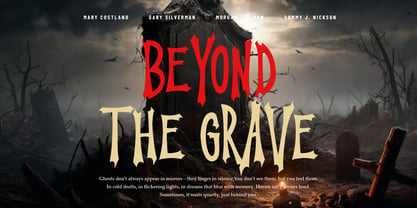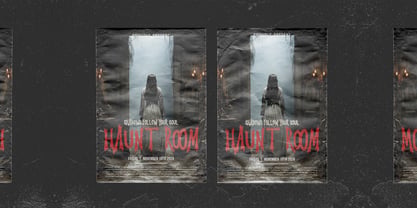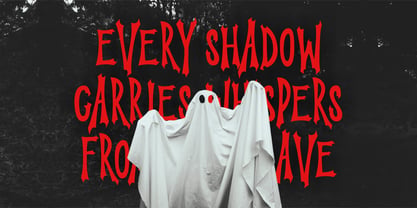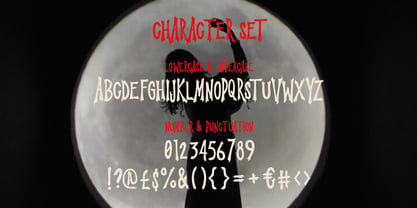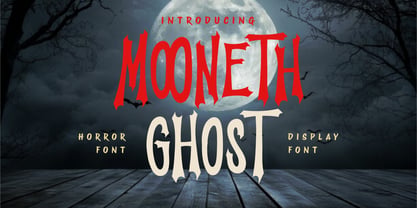
Mooneth Ghost
by Shanaf
The Mooneth Ghost Font Family was designed by Yesie Erma Yunita and published by Shanaf. Mooneth Ghost contains 1 styles. More about this family
Mooneth Ghost is a horror display font that blends spine-chilling drama with gothic elegance. Each letterform is meticulously crafted with jagged, exaggerated spikes and unsettling asymmetry—perfect for amplifying the fear factor in your creative work. The uppercase and lowercase set mimics hand-slashed ink strokes, evoking supernatural energy in every glyph. The font uses a two-tone color scheme—bold red and aged ivory—that enhances contrast, intensity, and drama across headlines, titles, and branding. With haunting curves and menacing angles, Mooneth Ghost is a typeface that screams for attention in horror movie posters, Halloween party invites, thriller book covers, and spooky branding.
From midnight-themed posters to haunted attraction signage, Mooneth Ghost captures the essence of ghost stories, mysterious shadows, and supernatural fear. The layout adapts well to dark, cinematic backgrounds and atmospheric compositions. Its distinct visual identity leaves a lasting impression—bold yet eerie, retro yet timeless. Whether you’re crafting a bone-chilling film title, eerie sticker design, or immersive packaging, this font ensures your message is both stylish and terrifying. Step beyond the grave with Mooneth Ghost, where every character whispers from the shadows.
Designers: Yesie Erma Yunita
Foundry: Shanaf